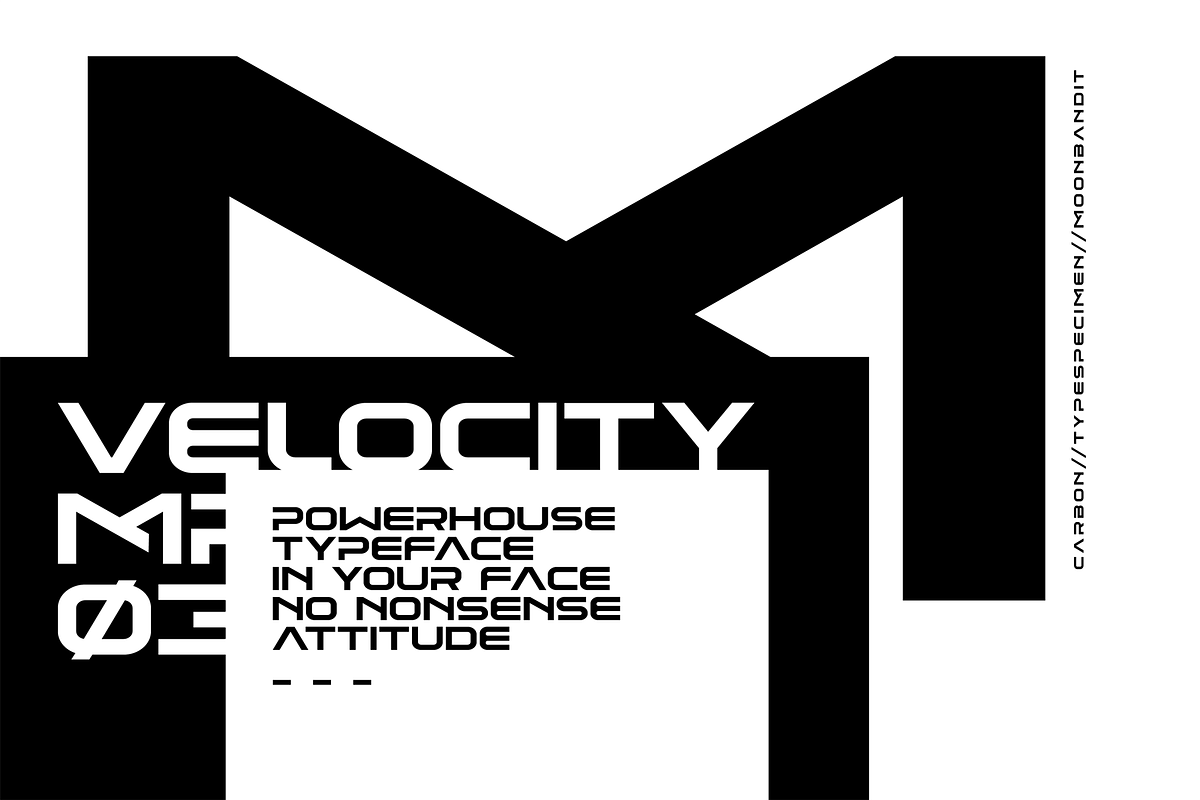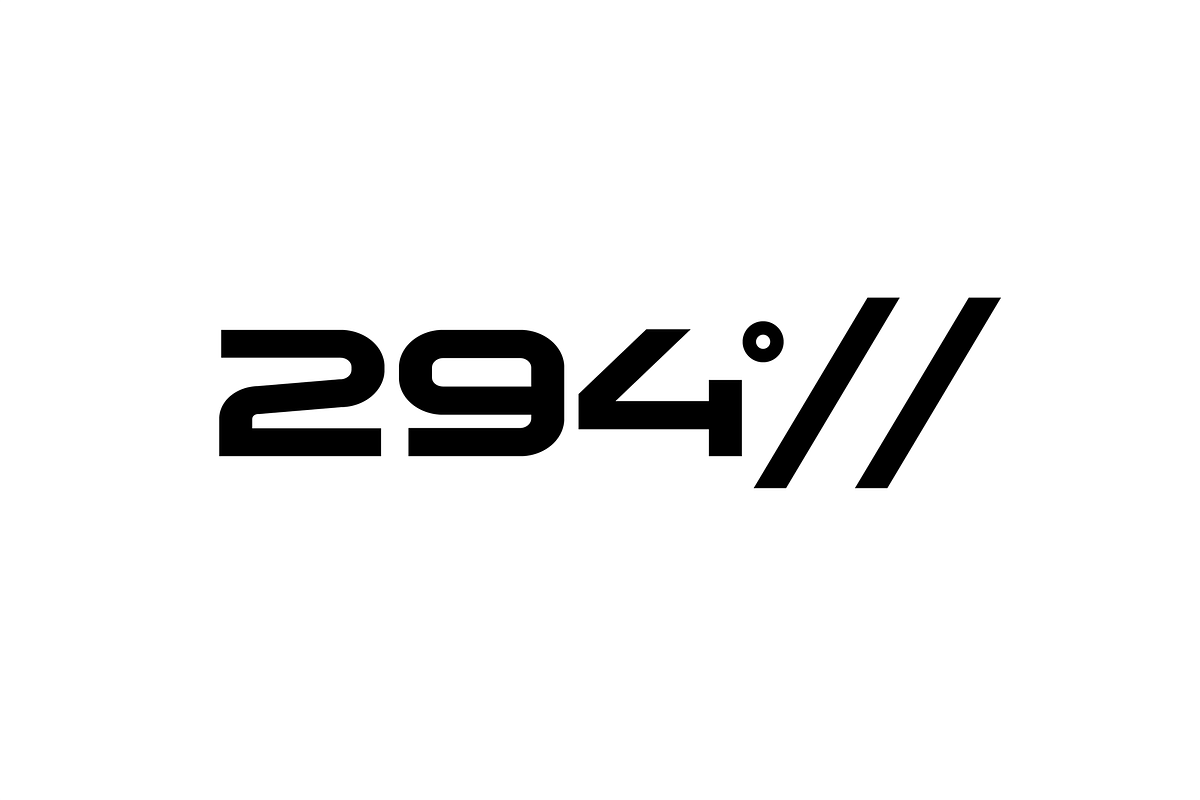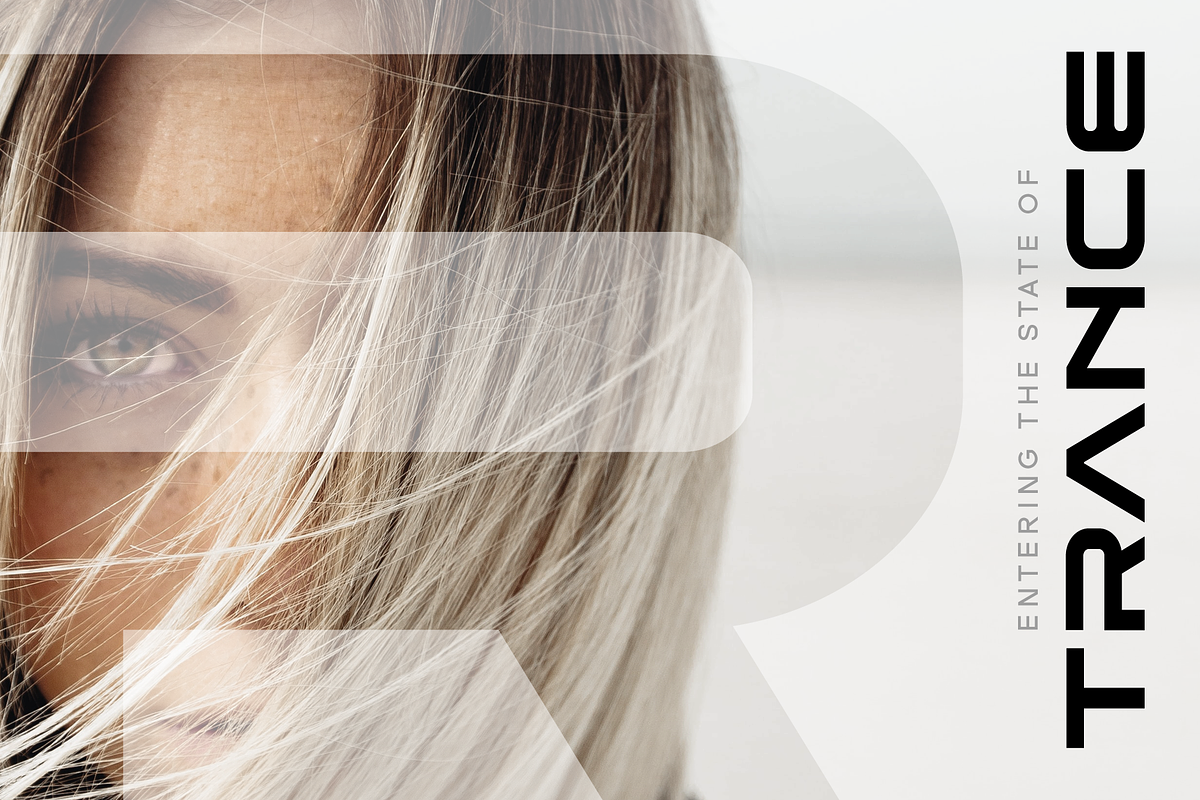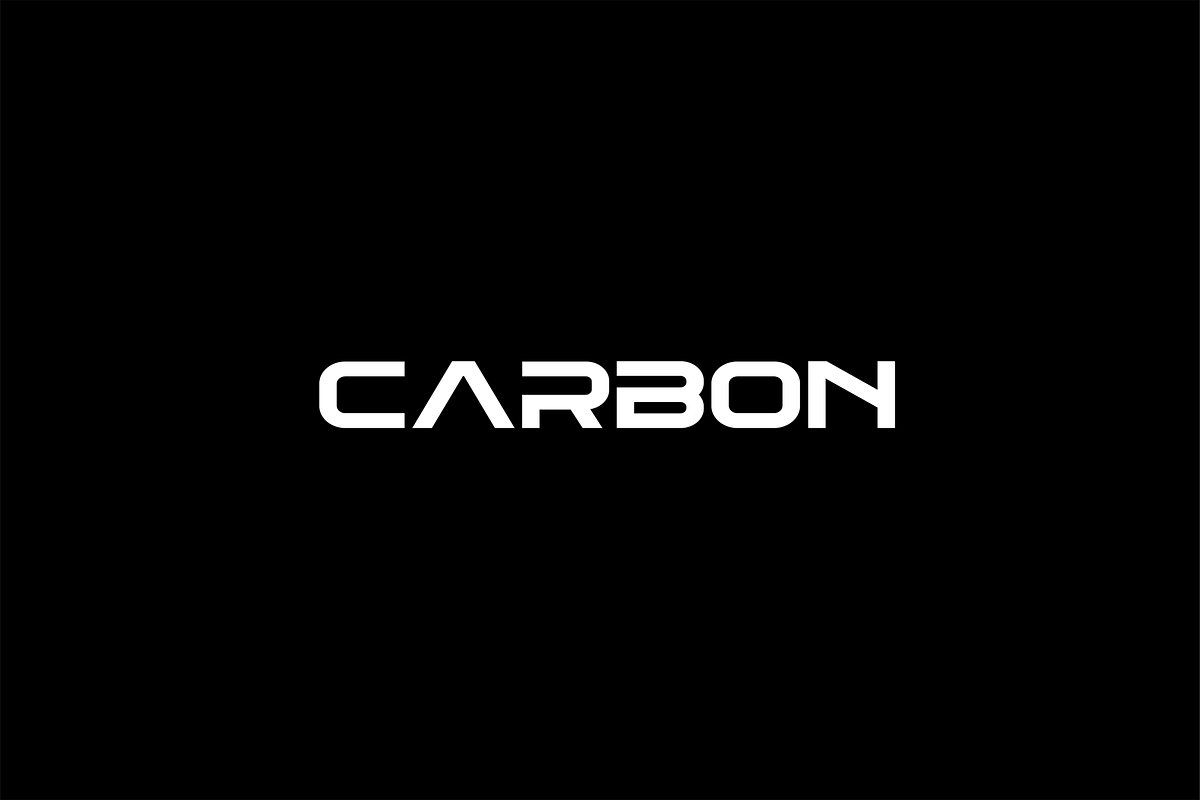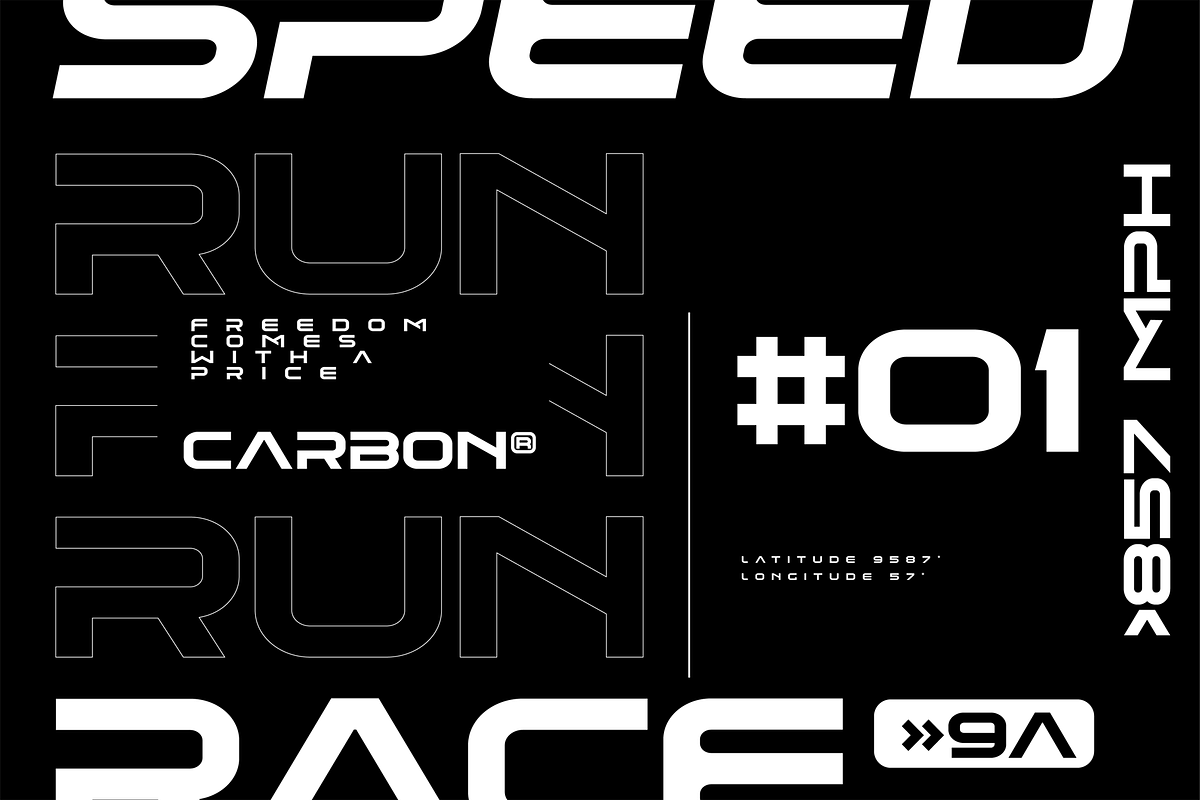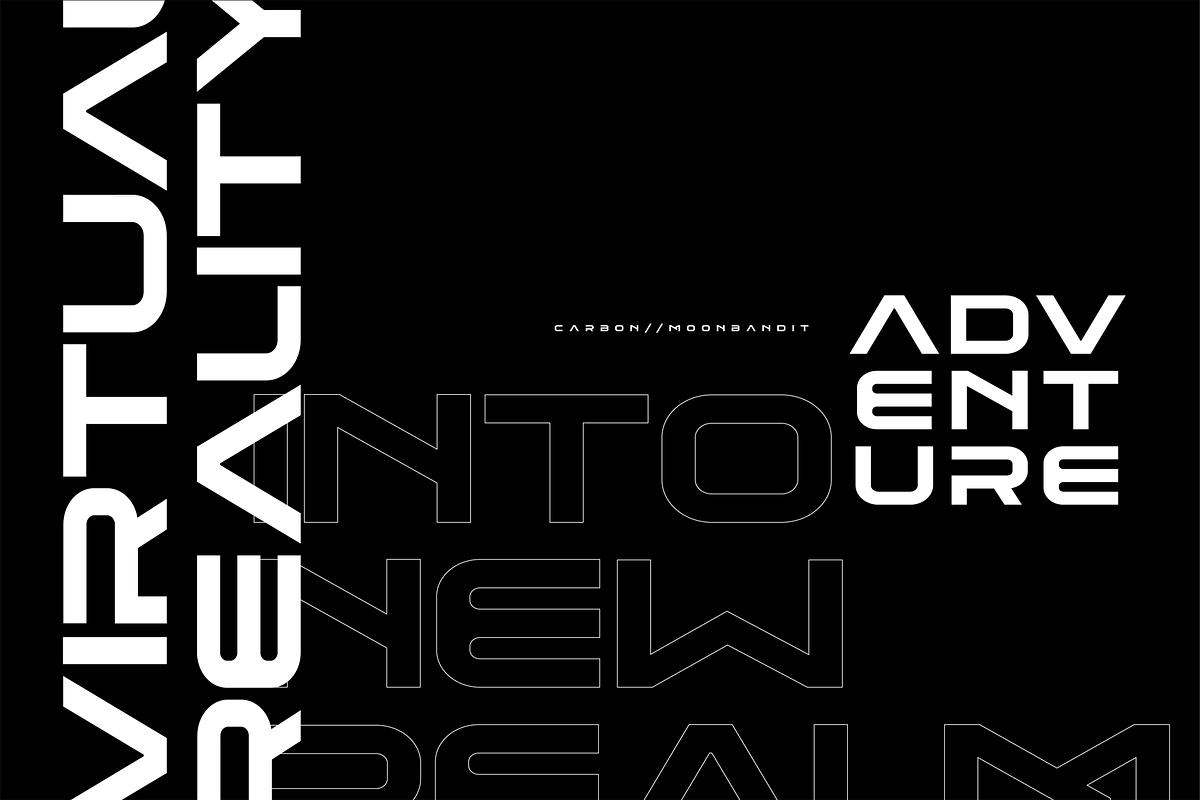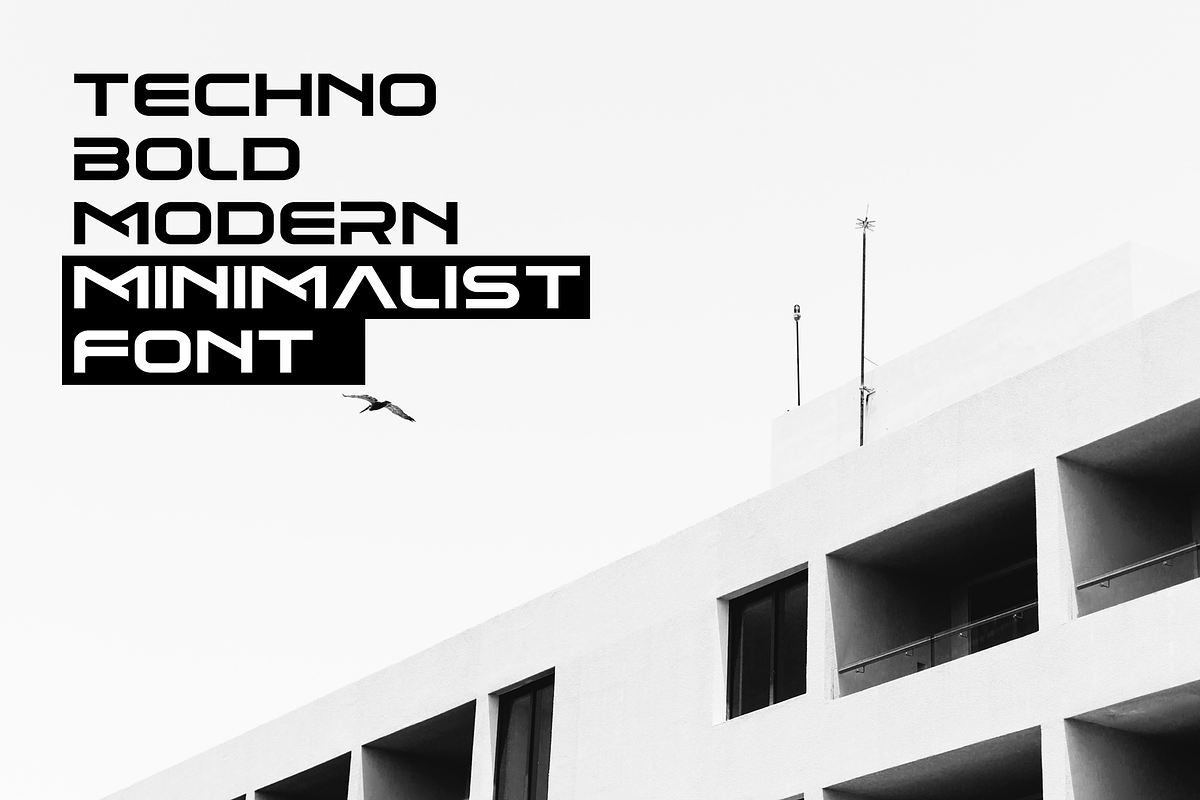
CARBON - modern minimalist font
Carbon is inspired by the modern gadget and technology, it is bold, sleek, perfect for technology or industrial theme.
CARBON - modern minimalist font by MoonBandit fits naturally into Branding, posters, packaging, typography.